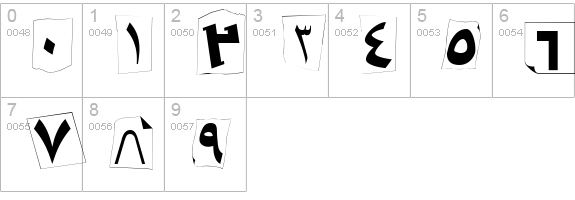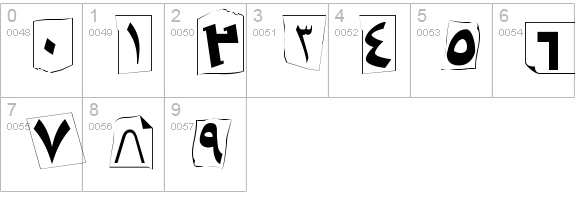
B Kidnap Font Details
B Kidnap font is a bold and captivating typeface that exudes a sense of mystery and intrigue. Its sharp edges and unique design make it perfect for headlines, logos, and branding projects that require a touch of edginess. The font features a modern and stylish look that will make your designs stand out from the crowd. Best of all, B Kidnap font is available for free download at FontsMarket.com. This means that you can elevate your designs without breaking the bank. Whether you're a seasoned designer looking for a fresh new font or a budding creator exploring typography for the first time, B Kidnap font is a versatile and eye-catching choice that won't disappoint. Download it today and see the impact it can make on your projects!